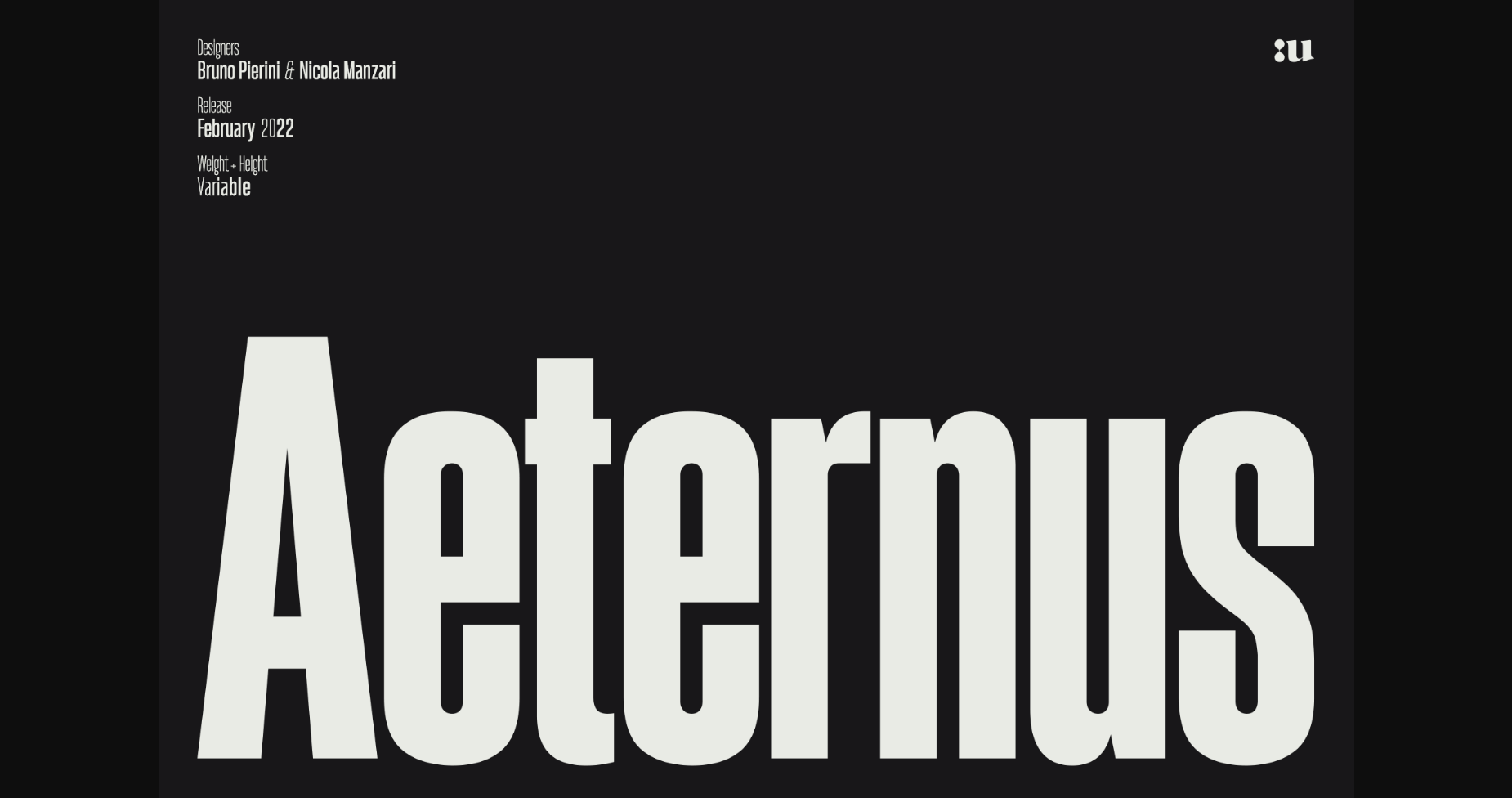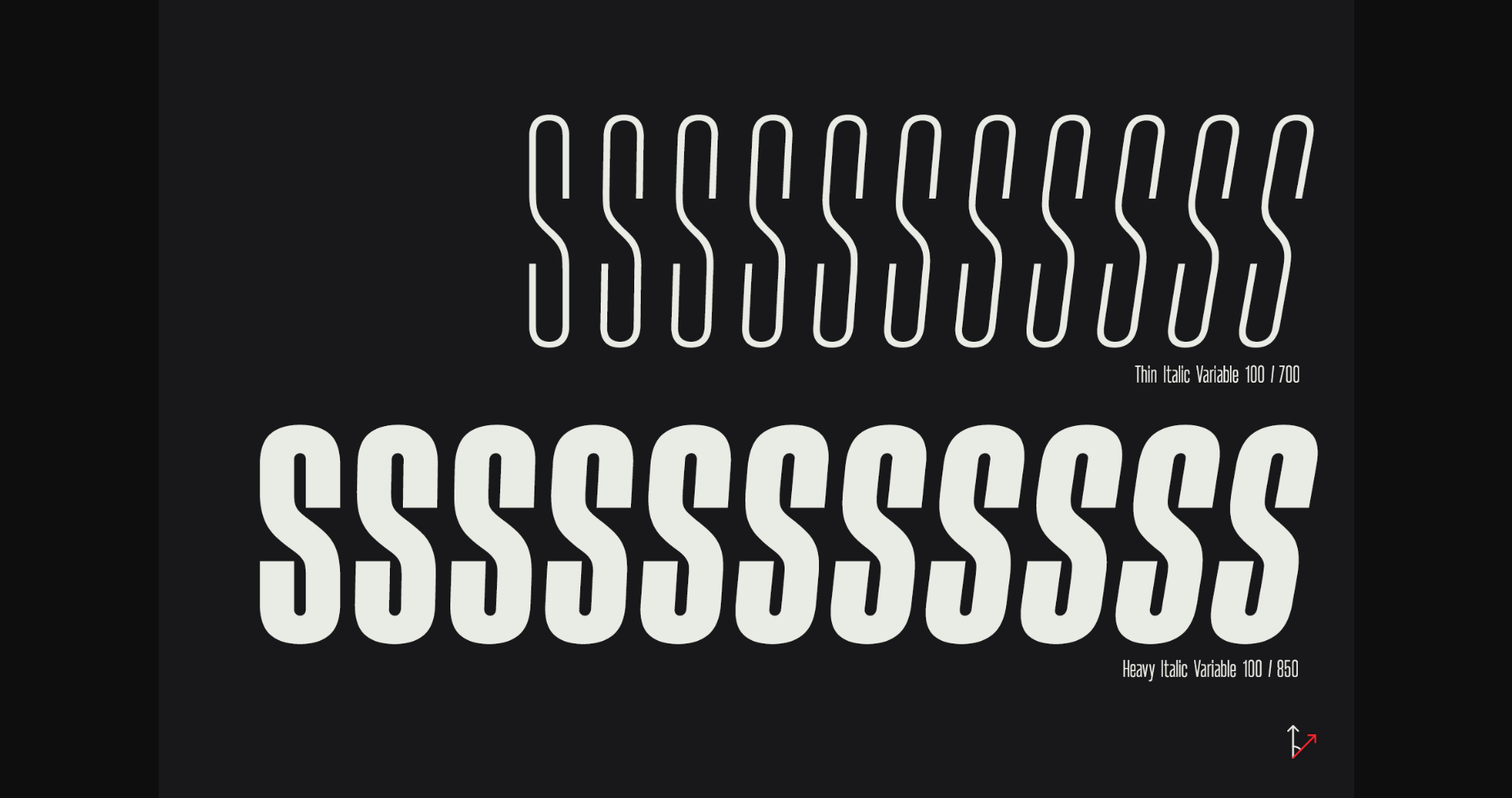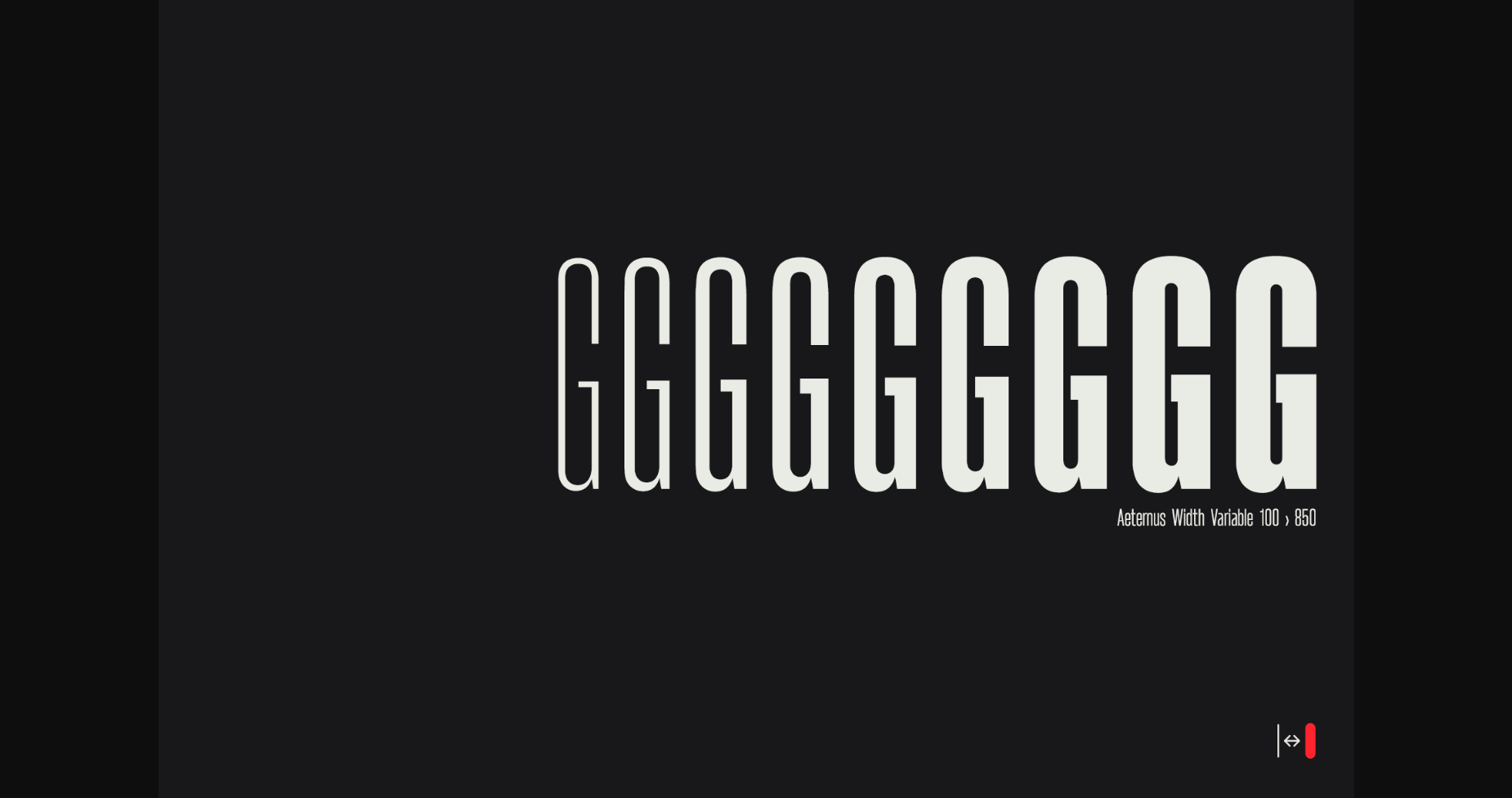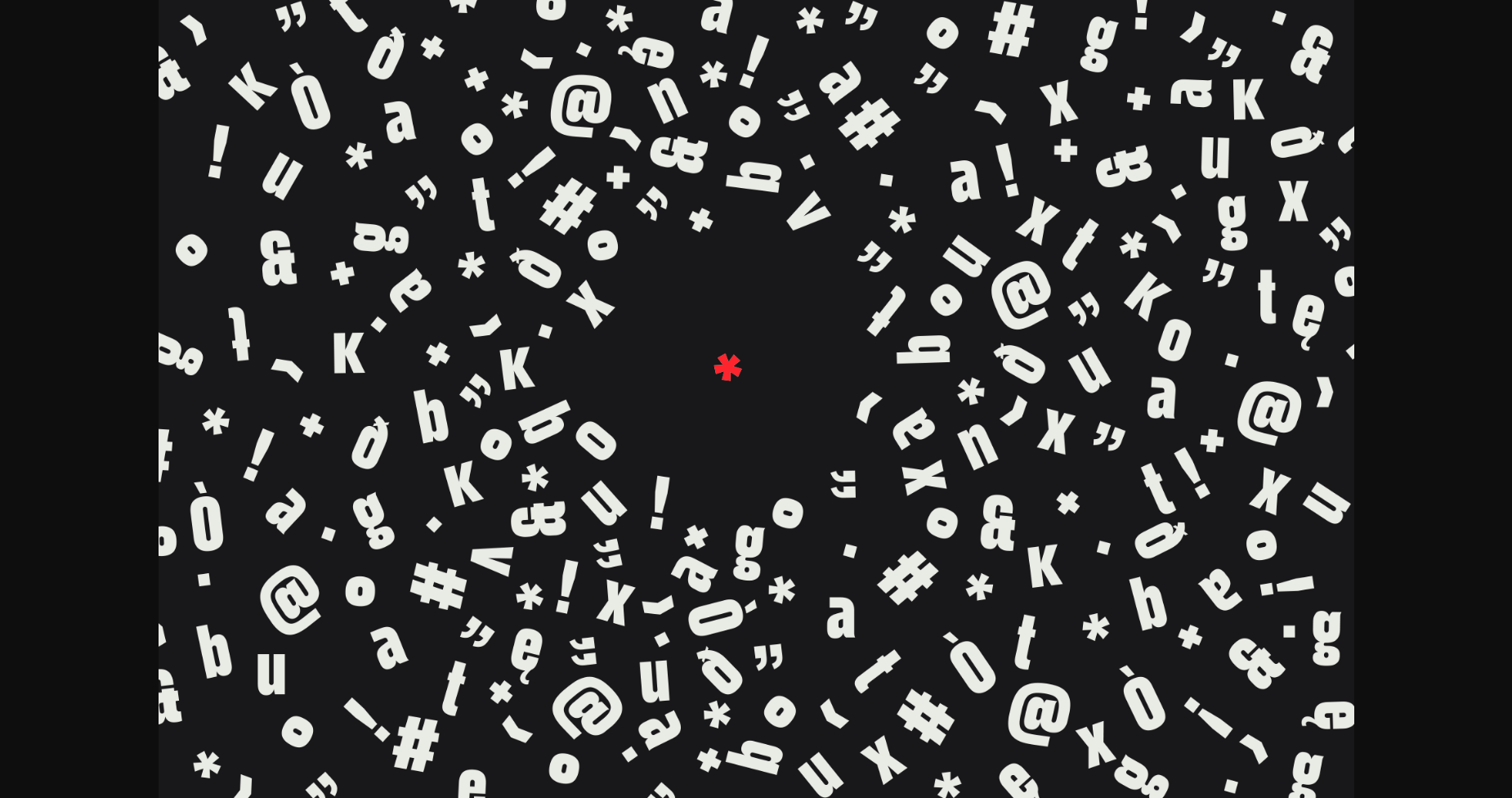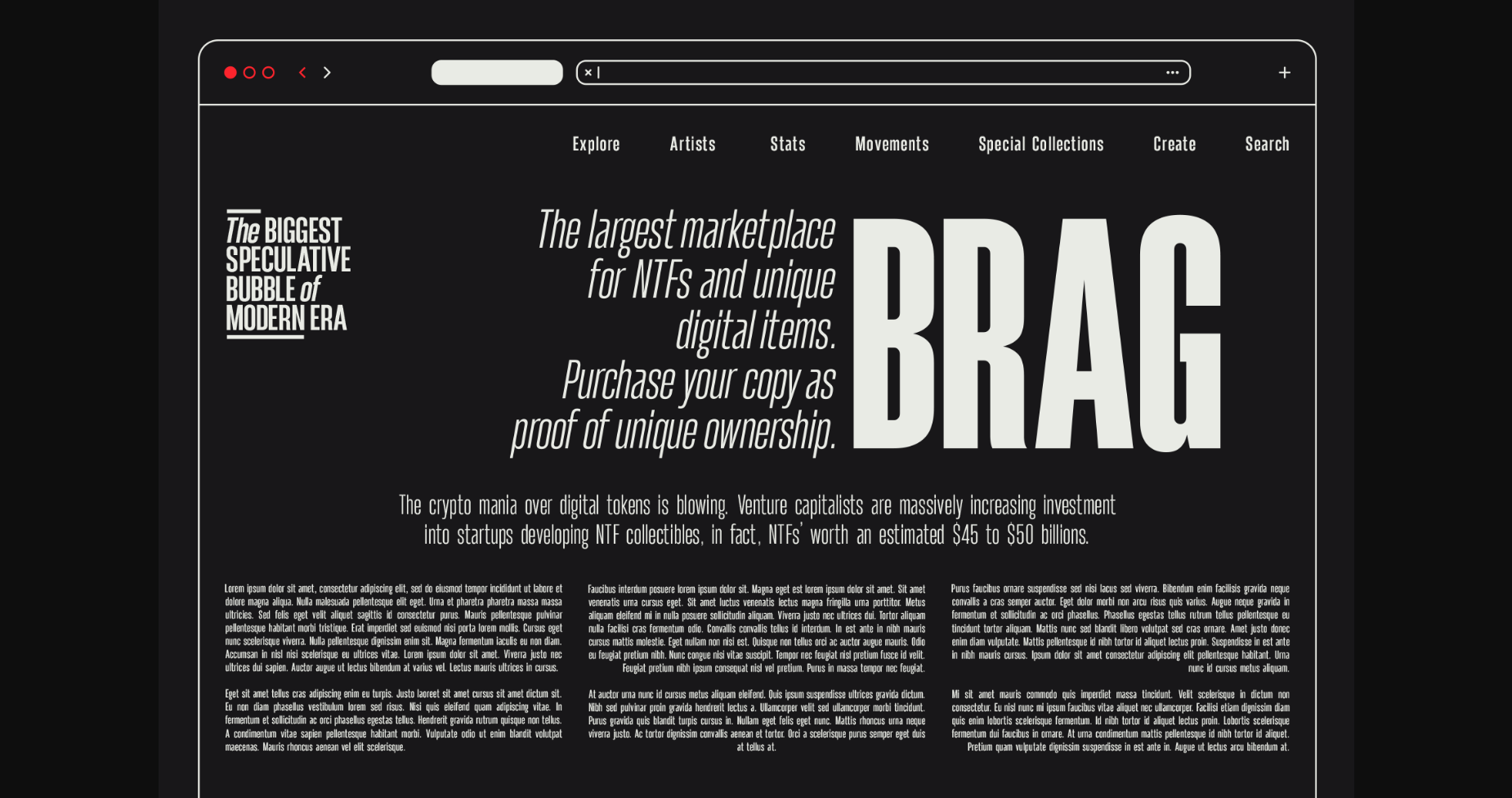
About Aeternus Font
Aeternus is a clean and neat sans serif font. The font is suitable for any branding project like logo, t-shirt printing, sporting design, and many more. It will look outstanding in a wide range of contexts.